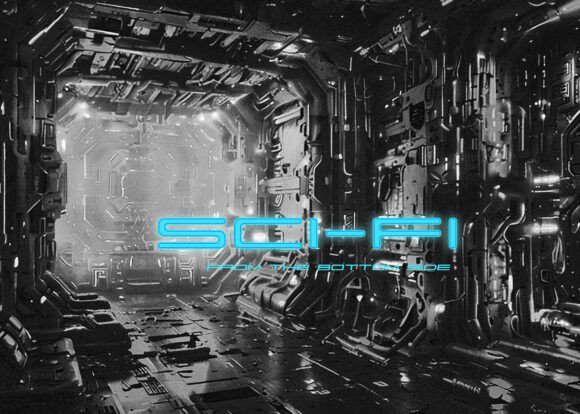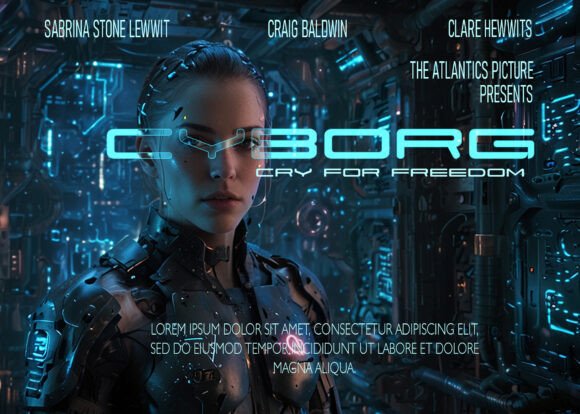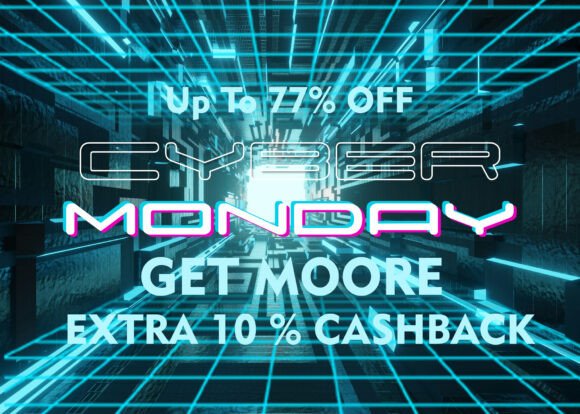
Introduction to Portano Font
Have you ever found yourself staring at a blank screen, desperately searching for the perfect font to elevate your creative project? The hunt can be daunting, especially when you’re trying to convey a futuristic, tech-savvy vibe. That’s where Portano Font comes in – a sleek, modern typeface that’s about to revolutionize your design game.
As a designer, you know the importance of having a reliable design resource at your fingertips. Portano Font is that game-changer. With its clean, geometric design and bold, extended width, this font is perfect for creating eye-catching logos, posters, and packaging that demand attention. And the best part? It’s available for free download, making it an accessible addition to your typography toolbox.
Key Features of Portano Font
- High-quality design resource ideal for creative projects, with a transparent background that allows for seamless integration.
- Includes multiple font styles, including regular, bold, italic, and bold italic, providing versatility for various design needs.
- Designed to be highly legible, with clear and crisp typography that is perfect for body text, headings, and titles.
- Supports a wide range of languages, making it a great choice for international design projects.
Honest Review: Portano Font
As a designer, I’m always on the lookout for high-quality design resources to elevate my creative projects. The Portano Font is one such resource that caught my attention recently. In this review, I’ll share my honest thoughts on this font.
- High-quality design: The Portano Font boasts a sleek and modern design that’s perfect for creative projects.
- Transparency: The font offers a transparent background, allowing for seamless integration into any design project.
- Limited character set: The font’s character set is limited, which may not be suitable for projects requiring a wide range of characters.
- Not suitable for large text: The font’s design may not be ideal for large text sizes, as it can become difficult to read.
Overall, I’m impressed with the Portano Font’s design and features. While it may have some limitations, it’s a valuable resource for designers looking for a high-quality font for their creative projects. With its transparent background and sleek design, it’s a great choice for projects requiring a modern and sophisticated look.
Tips for Getting the Most Out of Portano Font
For the best results, use Portano Font on a high-resolution image or design, and take advantage of its transparent background to create a seamless effect. You can also experiment with different font sizes and styles to add visual interest to your creative project.
Portano Font is a versatile design resource that can be used in a variety of creative projects, including logos, business cards, and presentations. Its high quality and transparent background make it an ideal choice for designers and non-designers alike.